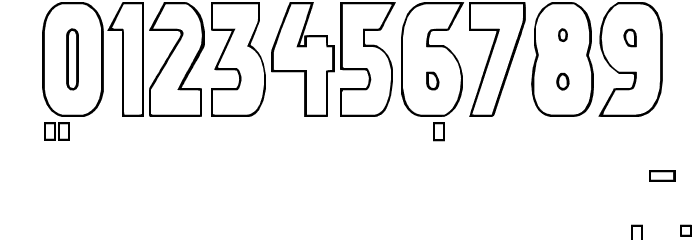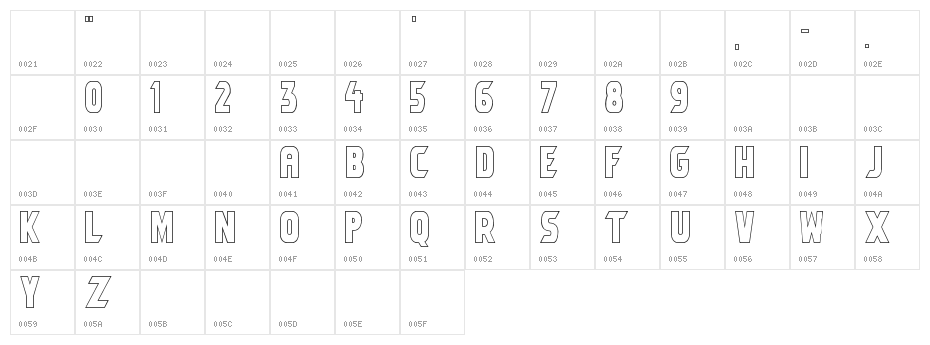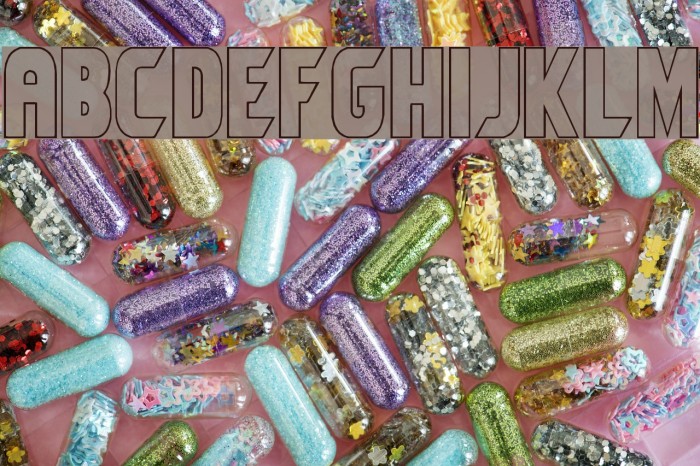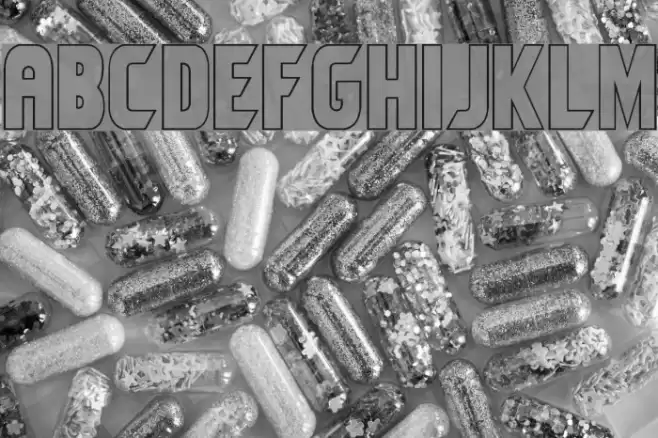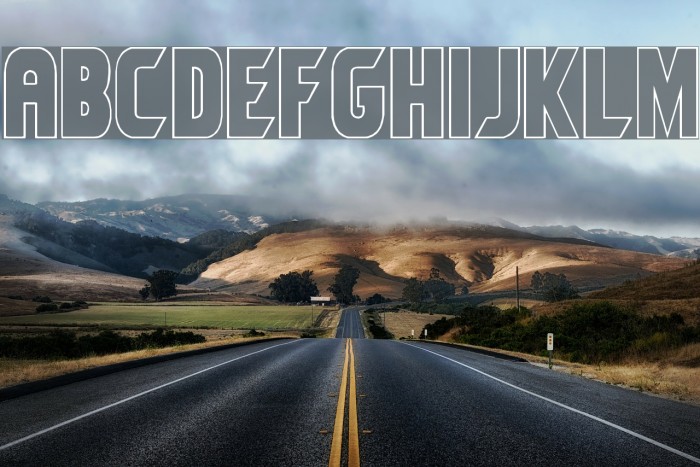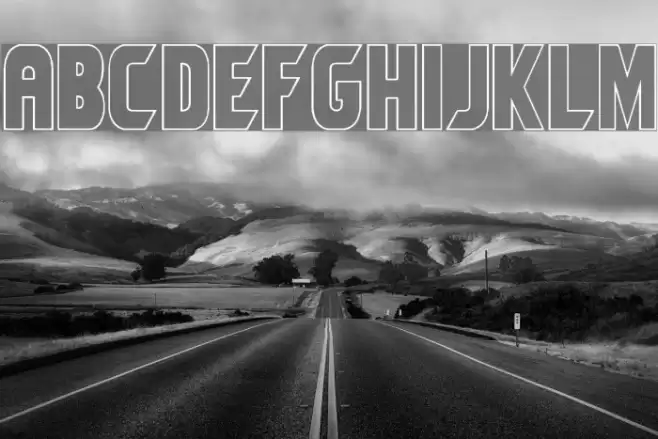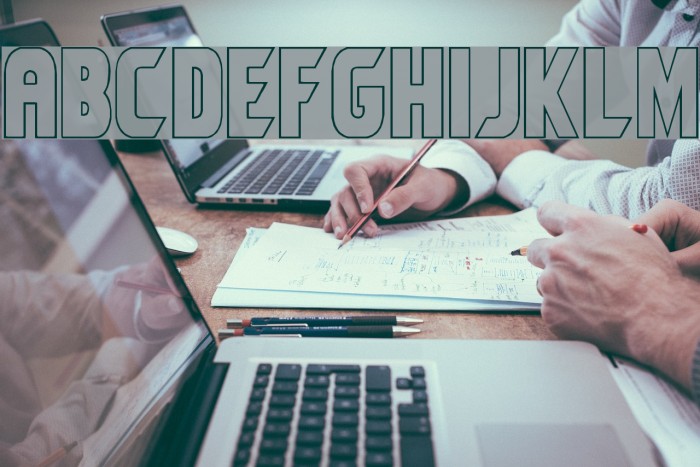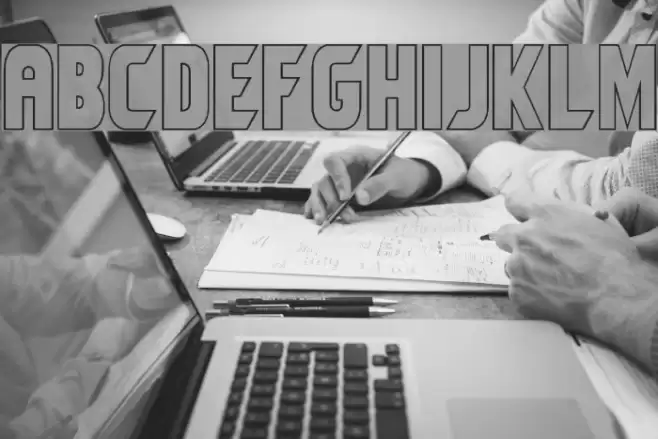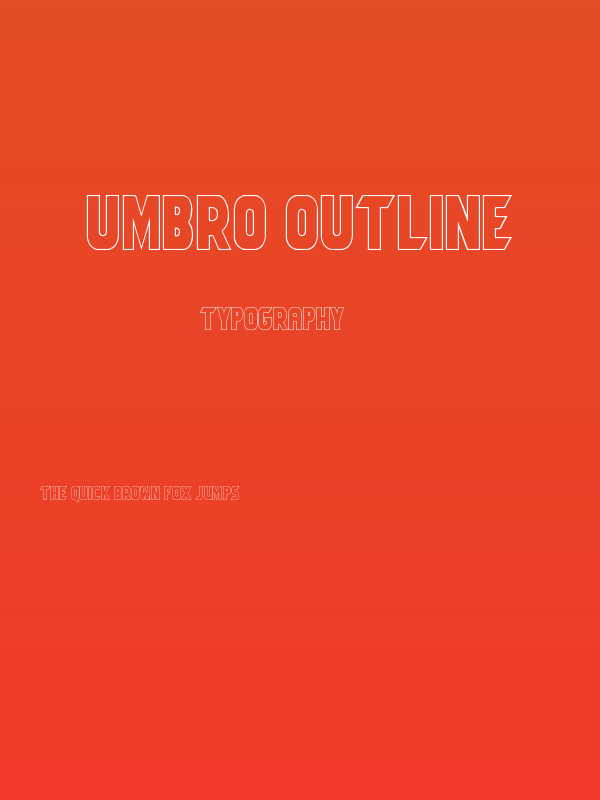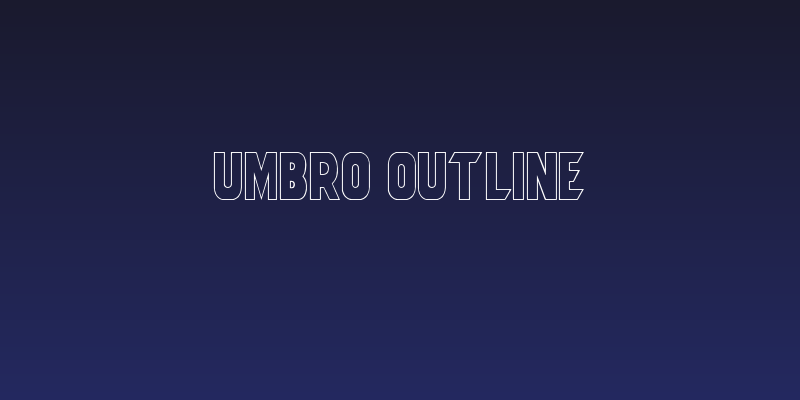
Umbro Outline Font
Umbro Outline Description
This font features a bold, geometric outline style that emphasizes its modern and sporty aesthetic. The uppercase letters are uniform in height, with sharp angles and clean lines that create a sense of strength and precision. The numbers follow the same design principles, ensuring consistency across all characters. The outline effect adds a dynamic and eye-catching dimension, making it suitable for impactful designs. The font's structure is robust, with a focus on clarity and readability, even in its outlined form.
| Proposed Projects | Ideal for sports branding, poster headlines, and dynamic logo designs. |